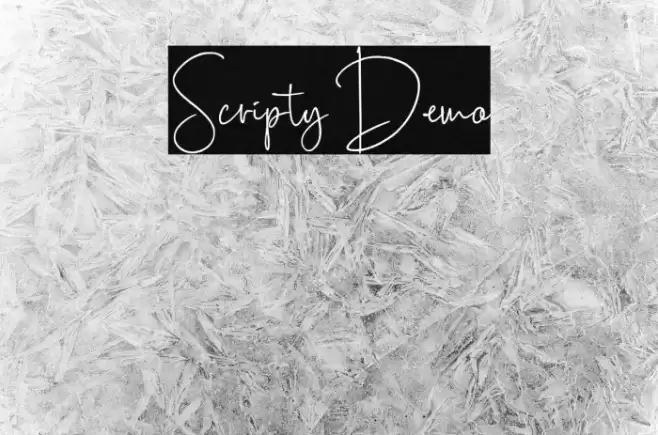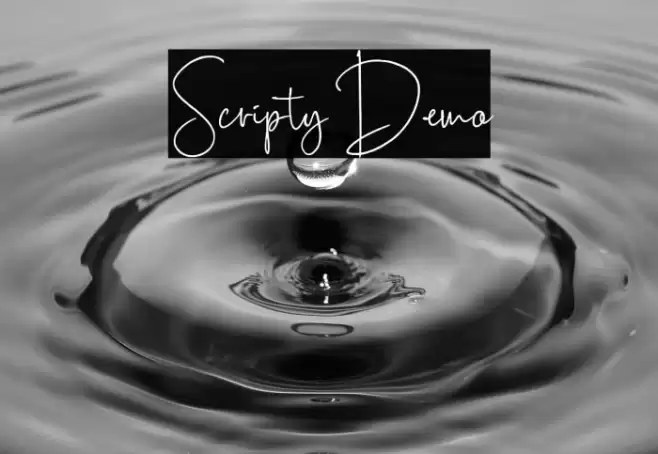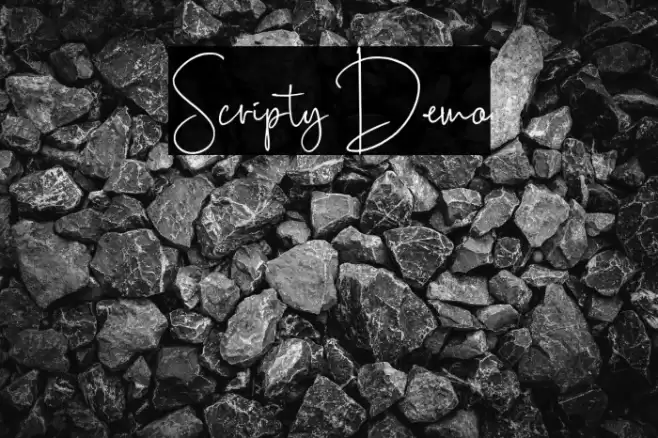
Scripty Demo Font
Scripty Demo Description
This font features a playful, handwritten style with a whimsical flair. The uppercase letters are tall and slender, with an airy feel that gives them a sense of elegance and lightness. The lowercase letters maintain a consistent flow, with smooth, connected strokes that mimic natural handwriting. The overall design is casual yet sophisticated, making it suitable for a variety of creative projects. The absence of special characters suggests a focus on simplicity and clarity, while the uniformity in stroke width provides a clean and polished appearance.
A whimsical, handwritten font with elegant, slender uppercase letters and smooth, flowing lowercase characters from Regular fonts.
- Proposed Projects: Ideal for greeting cards, invitations, personal branding, and creative projects that require a personal touch.
- Overall Style: Casual
- Use Case: Logos, Invitations, Personal Branding